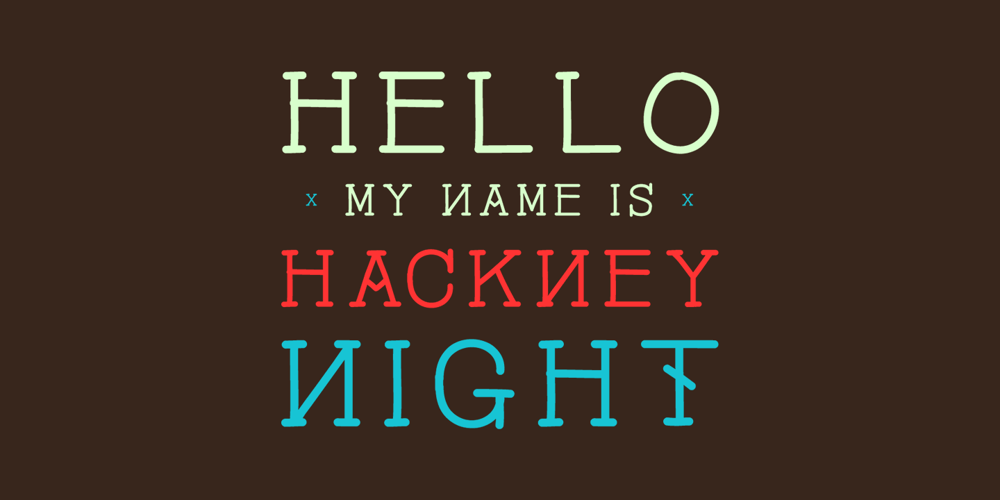
Hackney Night
Hackney Night font
Hackney Night Font Family was designed by David Alexander Slaager and published by Fonts of Chaos. Hackney Night contains 2 styles and family package options. Hackney Night is a slab face easy to use available in regular and bold weights. Hackney night is very readable in small as in large both in print and for the web. I’m sure you will love it like I love to do it for you.